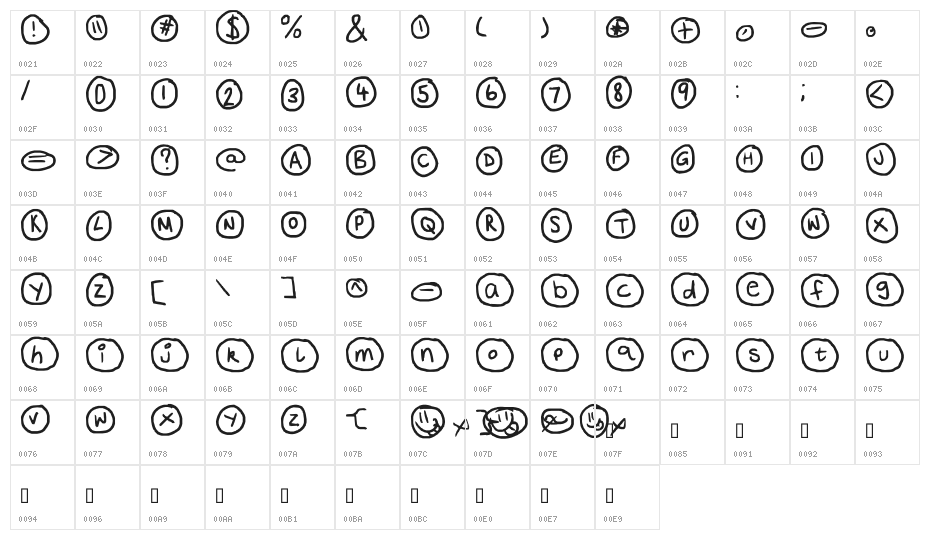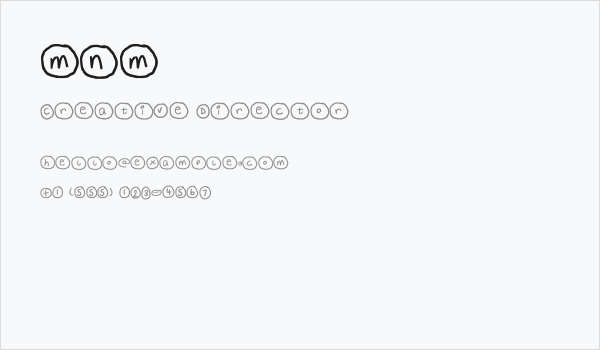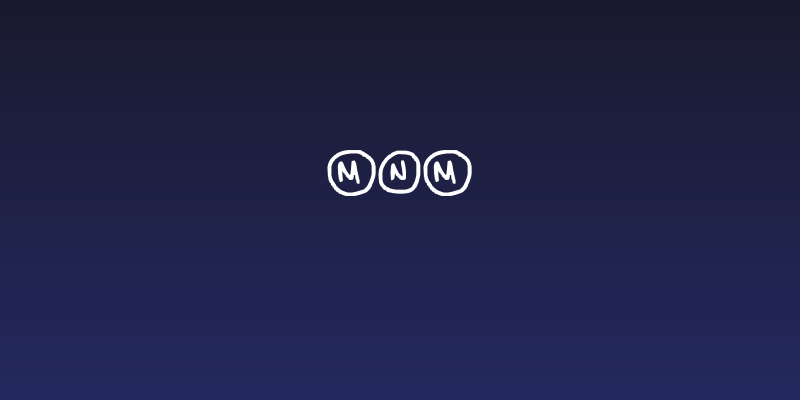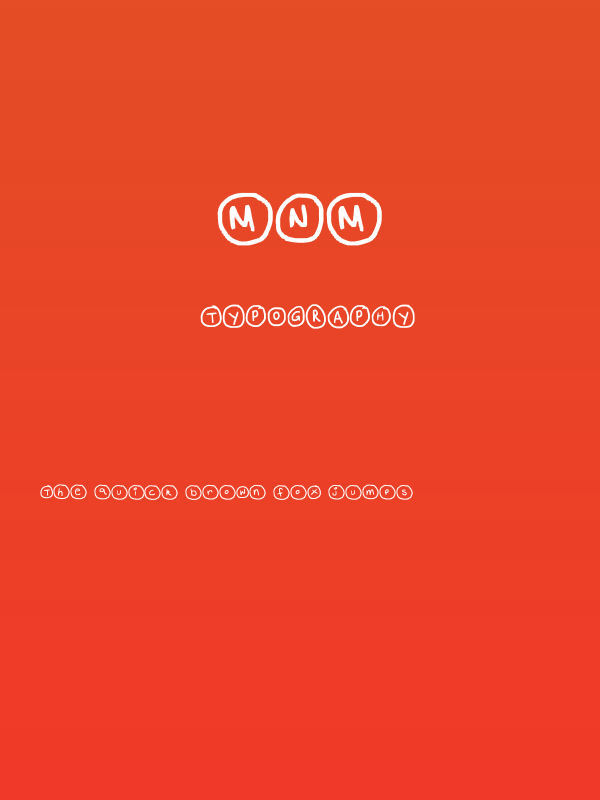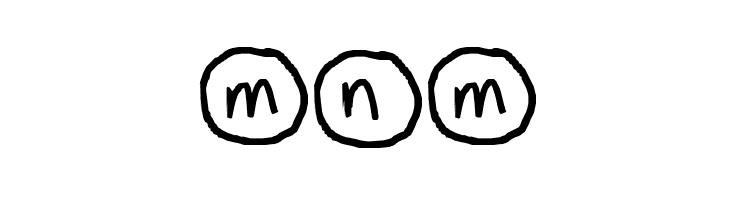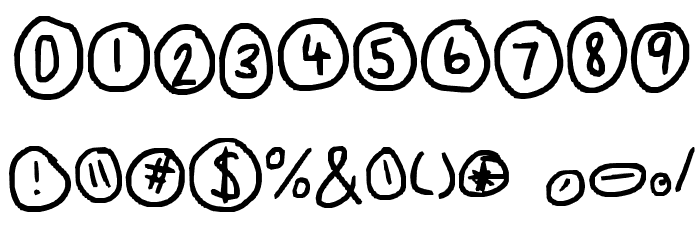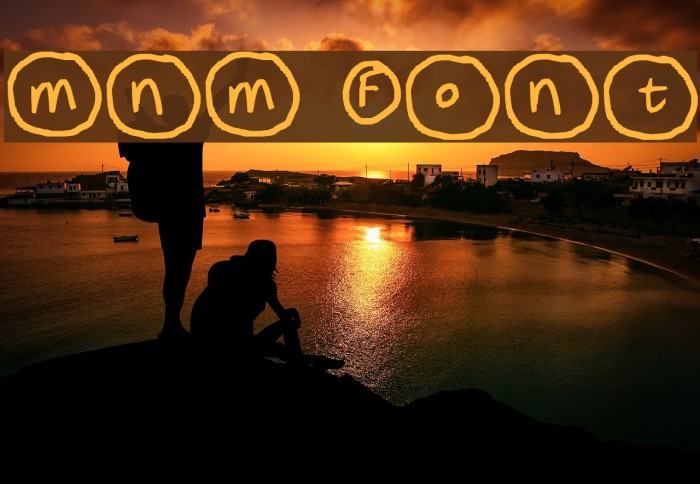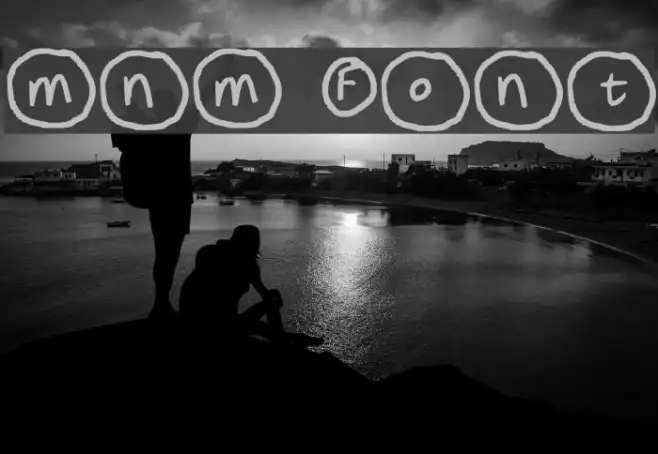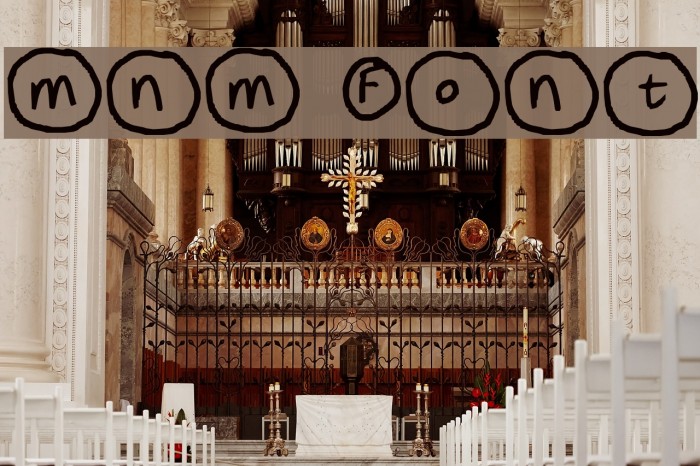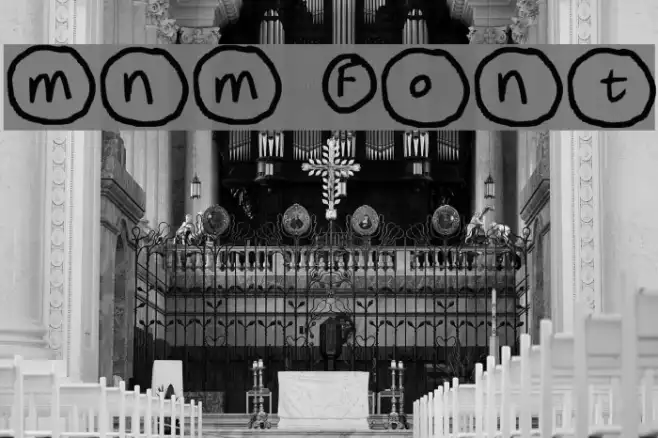
mnm Font
mnm Description
This playful and whimsical font features characters enclosed in hand-drawn circles, giving it a casual and informal appearance. The letters are bold and rounded, with a consistent thickness that adds to the overall friendly and approachable style. The uppercase and lowercase letters maintain a uniform size, while the numbers and special characters follow the same circular enclosure, ensuring a cohesive look. The font's unique design makes it stand out, perfect for projects that require a touch of fun and creativity. Its hand-drawn aesthetic is reminiscent of doodles or sketches, making it suitable for informal and lighthearted applications.